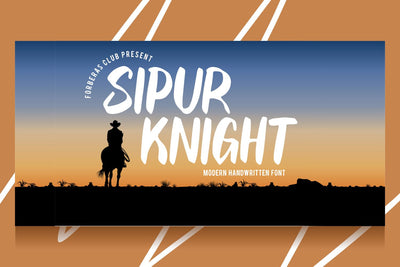
Sipur Knight
Introducing Sipur Kight Font by Sipur Kight
Sipur Kight is a Modern Handwritten Font. Sipur Kight is perfect for book cover, product packaging, branding project, megazine, social media, wedding, or just used to express words above the background.This font includes TTF and OTF, This font also multilingual support.